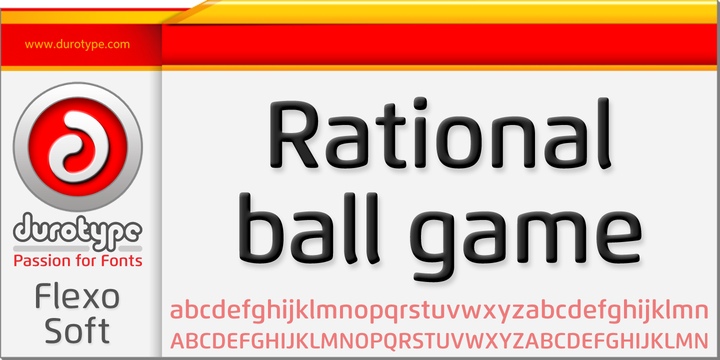
Flexo Soft Font
Flexo Soft Font is perfect for modern branding, product packaging, web design, social media graphics, and editorial layouts. Its rounded and friendly letterforms give a contemporary, approachable feel to any project.
What makes Flexo Soft Font exciting is its smooth curves and clean geometry, which balance professionalism with warmth. This versatility allows it to suit both playful and corporate design contexts seamlessly.
The Flexo Soft Font family includes Regular, Bold, Italic, and Light weights, offering designers flexibility to create dynamic typographic hierarchies and cohesive visual compositions.